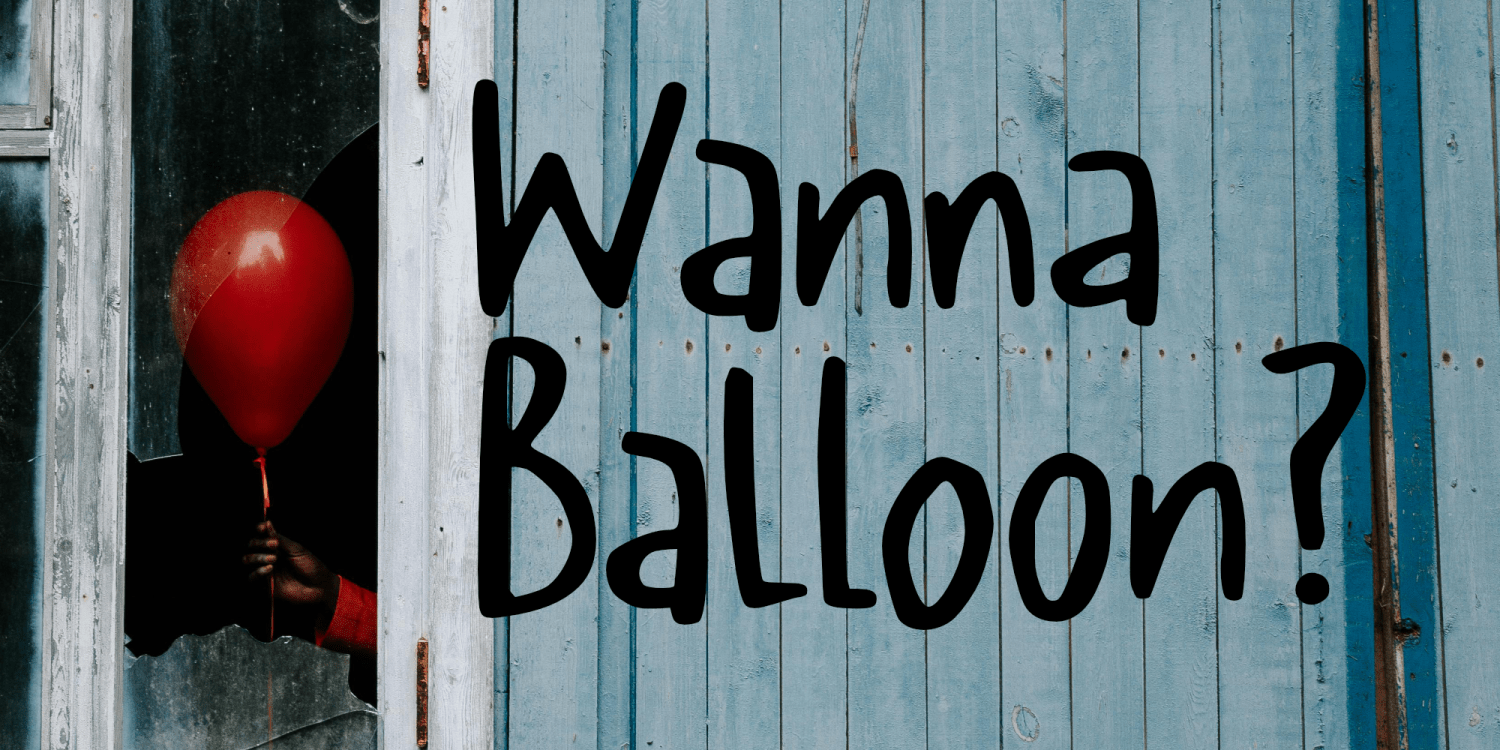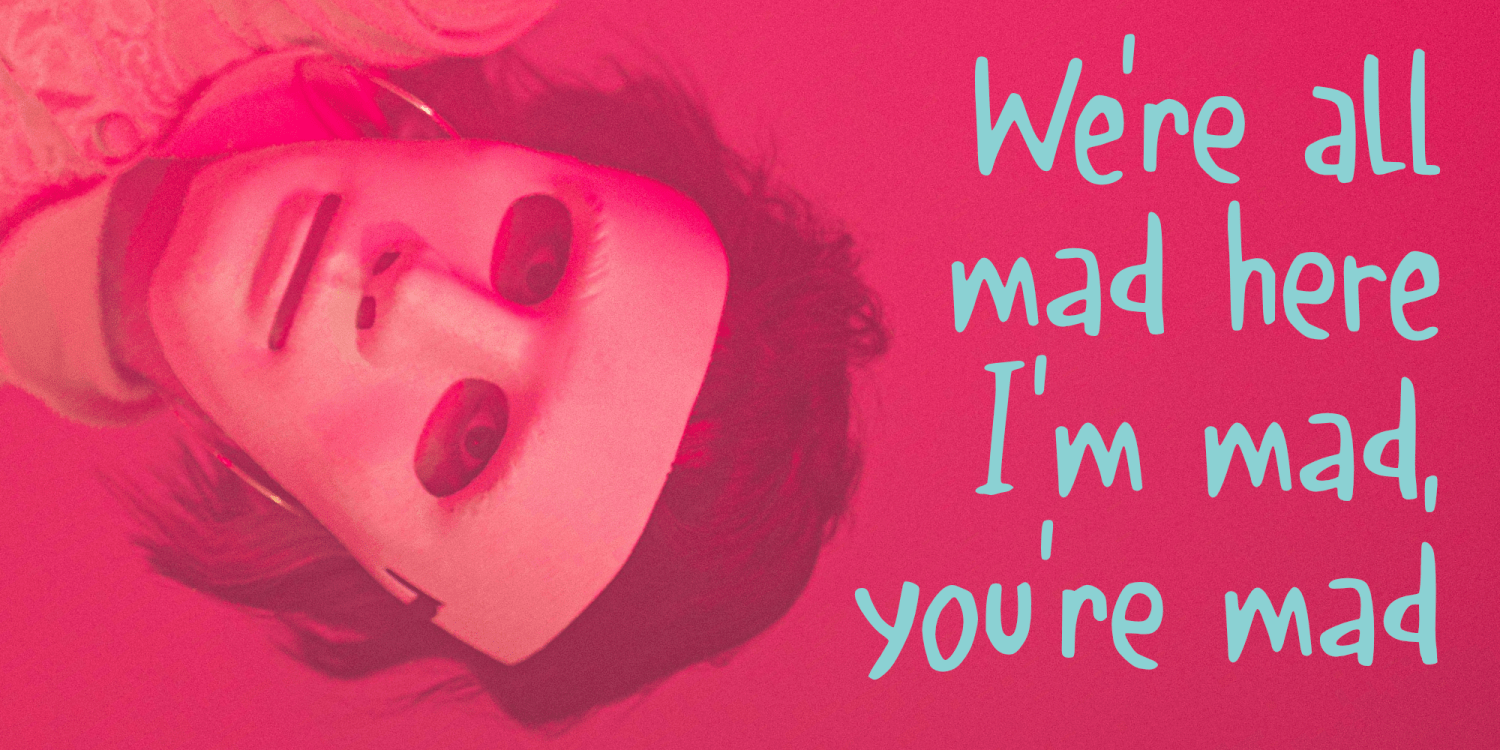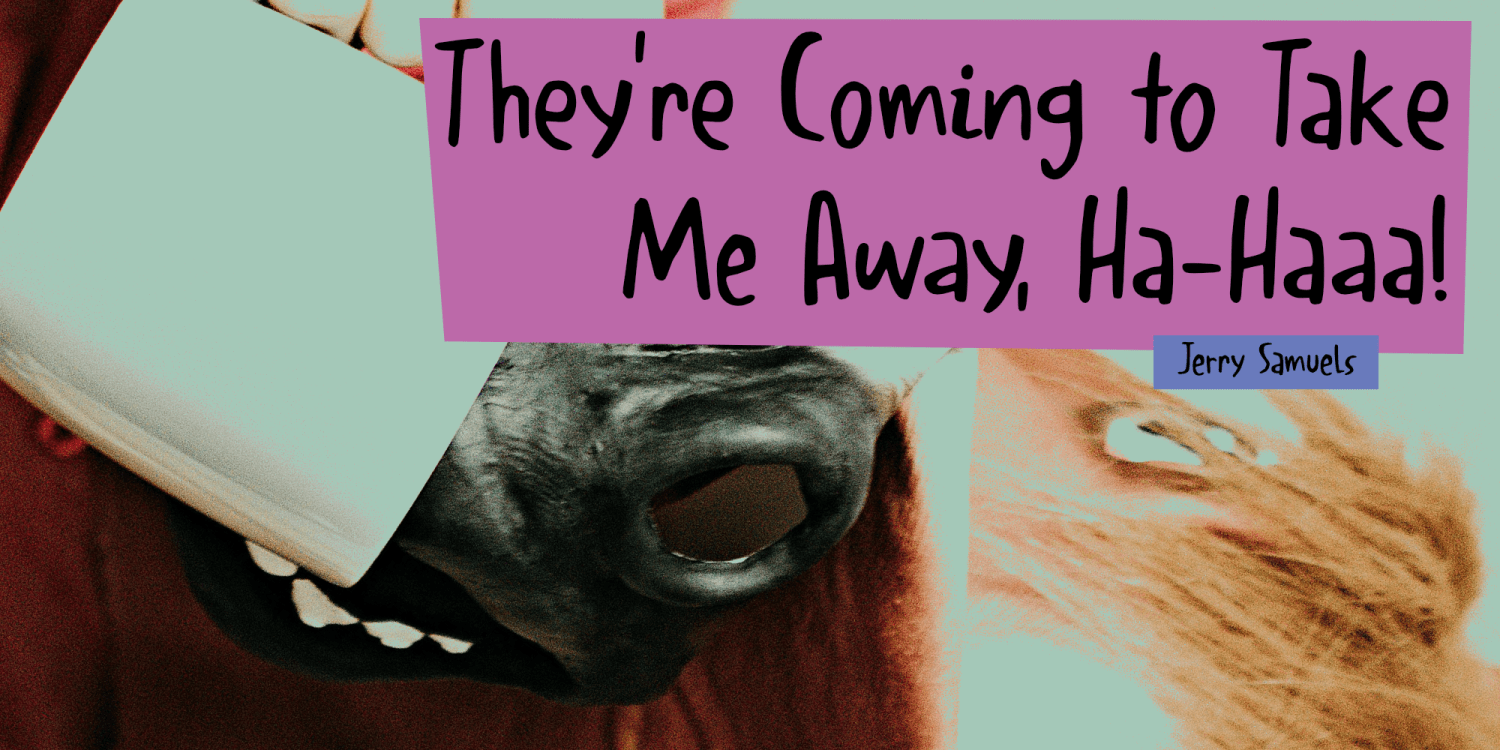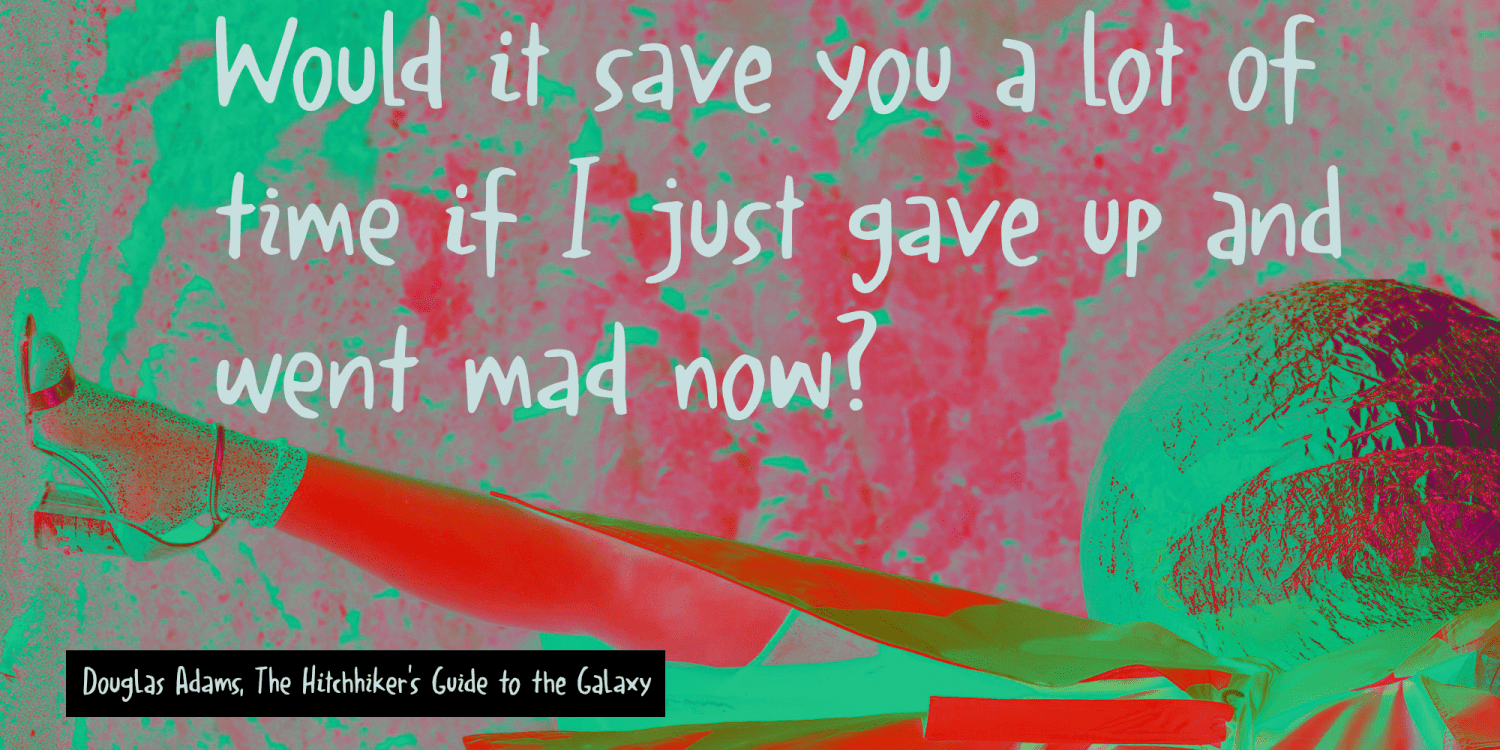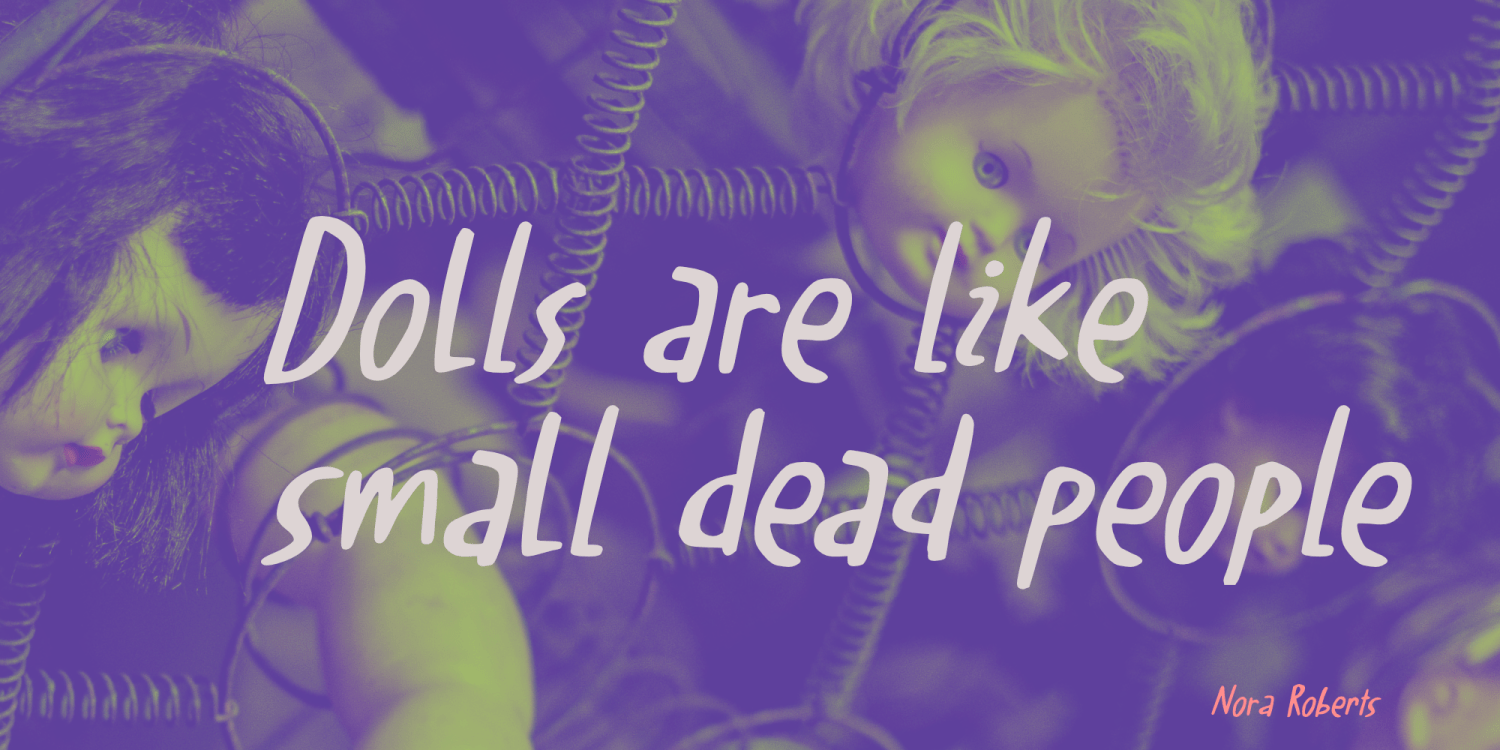
Utterly Bonkers
Utterly Bonkers is a British expression, meaning: ‘completely crazy’. I am reading The Hitchhikers Guide To The Galaxy series (a 5 book trilogy by Douglas Adams) and to say it’s completely bonkers is an understatement. I love it though!
Utterly Bonkers was made using a cheapo marker pen and a piece of rough paper. It comes with extensive language support and a really nice set of alternates for the lower case glyphs. As if by magic, these alternates cycle as you type!